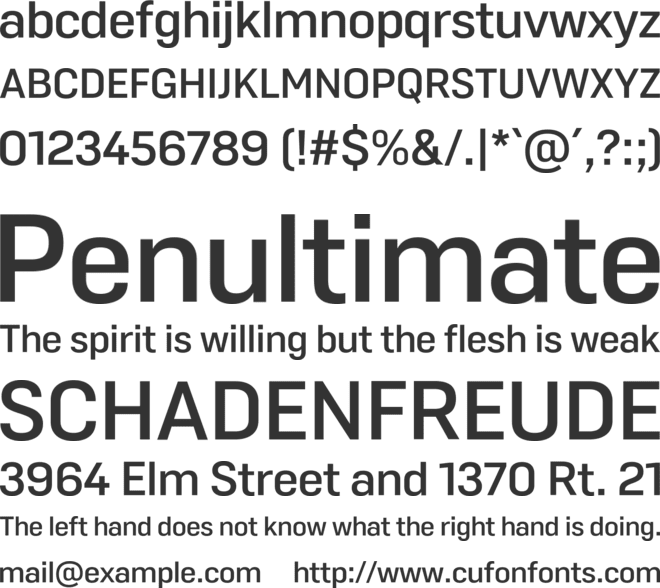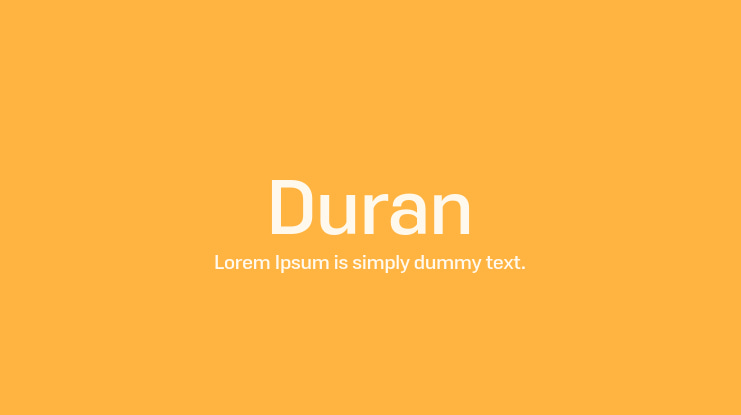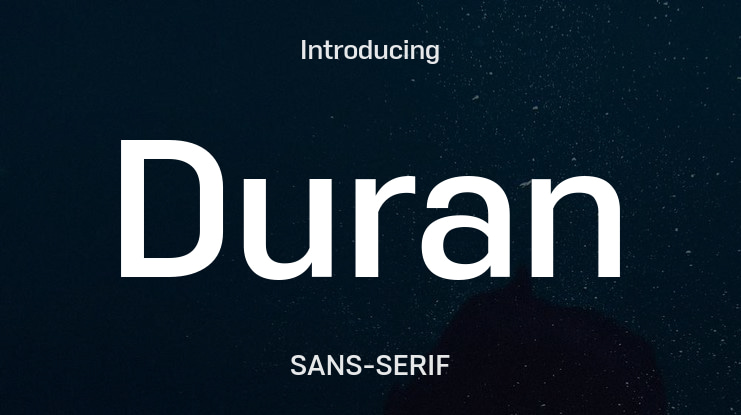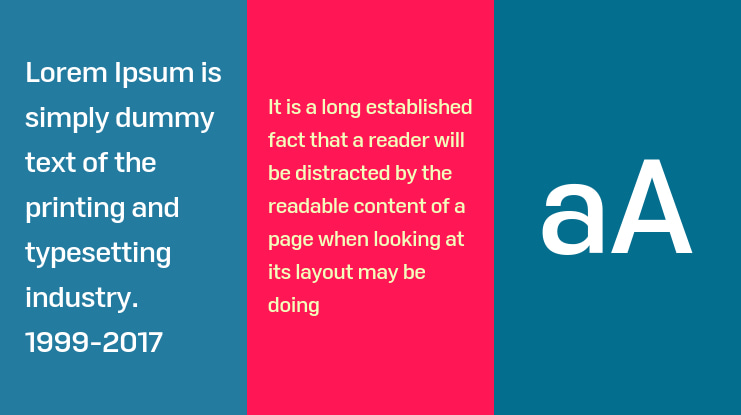
Duran Font
Duran is a robust and versatile geometric sans-serif typeface with an industrial quality. Inspired by technical style letterforms with simple construction, this typeface is suitable for both large formats and body text. Its compact lateral shape helps save space across layouts, making it an excellent choice for a wide range of modern applications.